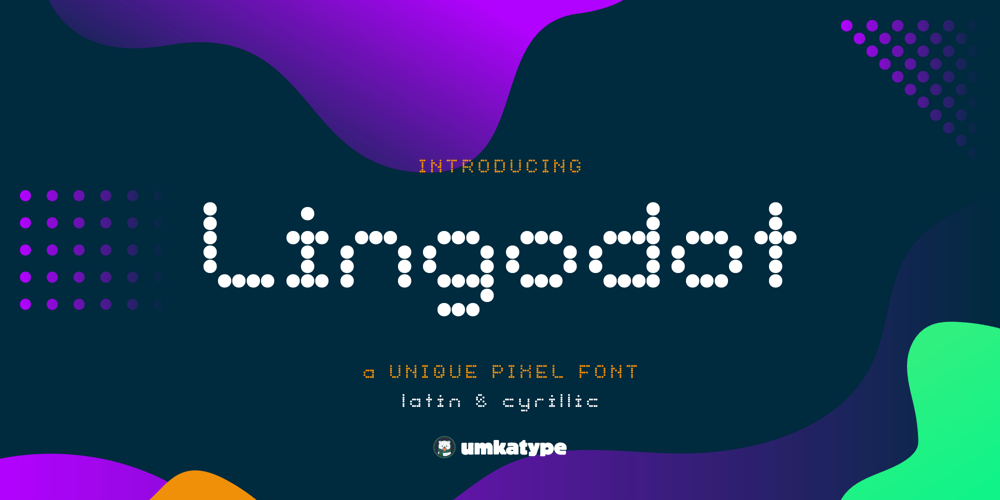
Lingodot Font Family was designed by Alper Çakıcı and published by Umka Type. Lingodot contains 1 styles and family package options. Lingodot is a modern and versatile typeface with exceptional kerning, making it perfect for digital and print applications. It offers comprehensive support for the Cyrillic language, enabling seamless multilingual communication. Lingodot’s distinctive design merges classic proportions with a contemporary aesthetic, setting it apart from other fonts in its category.It supports 68 Languages including Russian, Afrikaans, Albanian, Asu, Basque, Bemba, Bena, Breton, Catalan, Chiga, Cornish, Danish, Dutch, English, Faroese, Filipino, French, Friulian, Galician, German, Gusii, Icelandic, Indonesian, Irish, Italian, Kabuverdianu, Kalenjin, Kinyarwanda, Luo, Luxembourgish, Luyia, Machame, Makhuwa-Meetto, Makonde, Malagasy, Manx, Morisyen, North Ndebele, Norwegian Bokmål, Norwegian Nynorsk, Nyankole, Oromo, Portuguese, Quechua, Romansh, Rombo, Rundi, Rwa, Samburu, Sango, Sangu, Scottish Gaelic, Sena, Shambala, Shona, Soga, Somali, Spanish, Swahili, Swedish, Swiss German, Taita, Teso, Turkish, Uzbek (Latin), Volapük, Vunjo, Zulu.